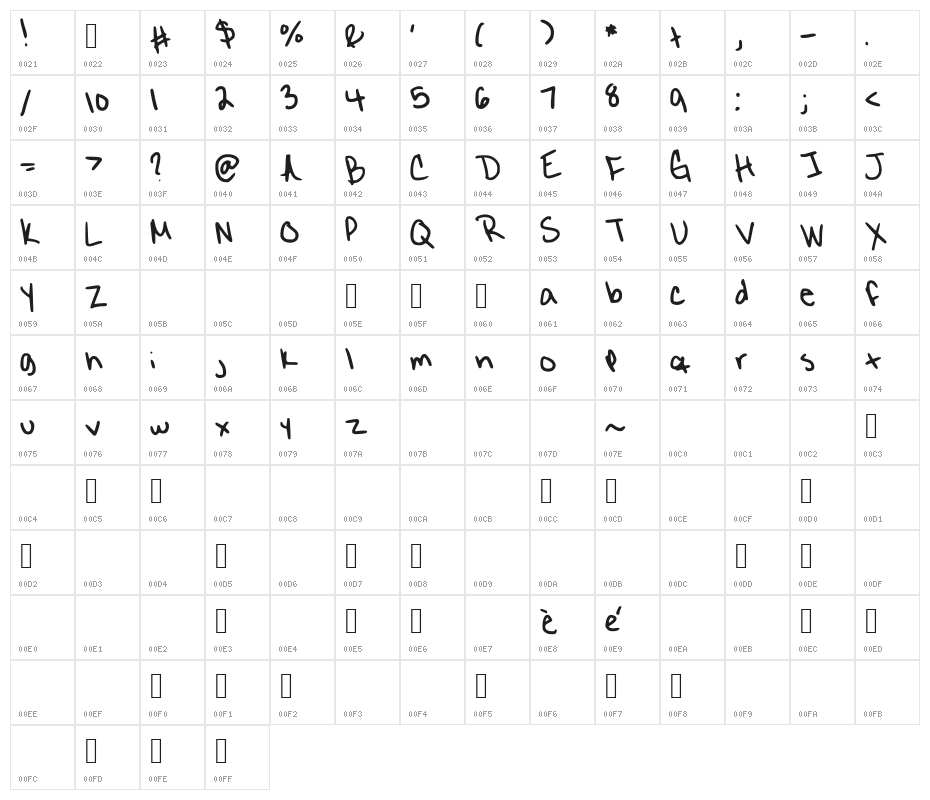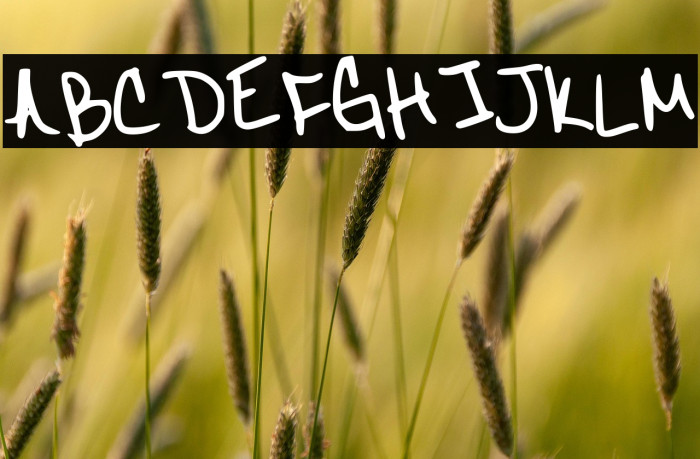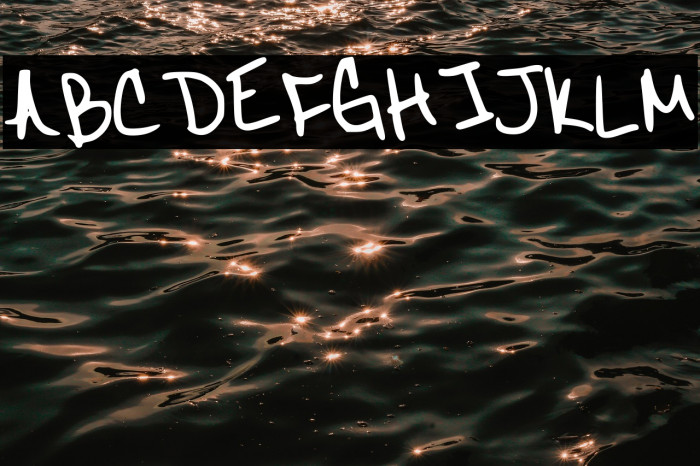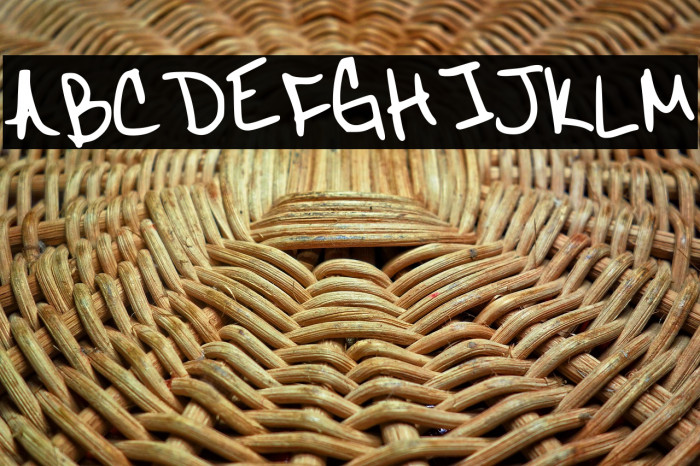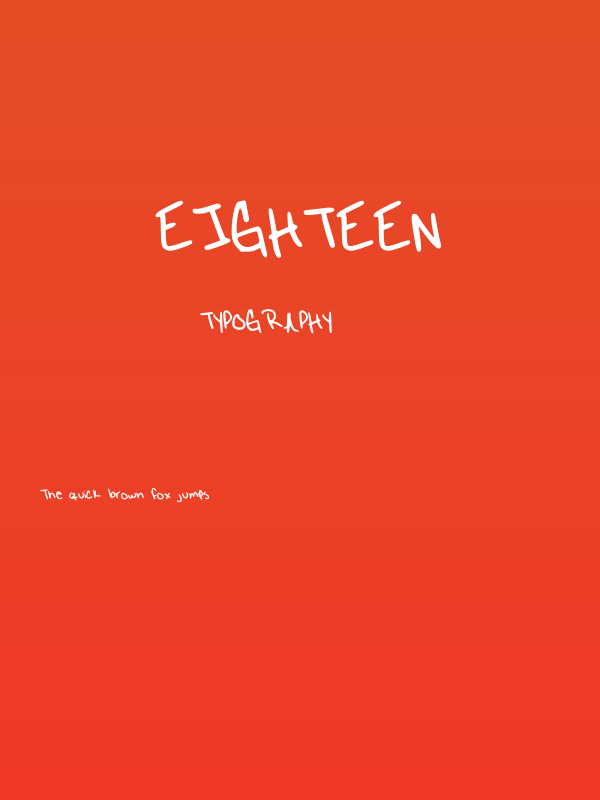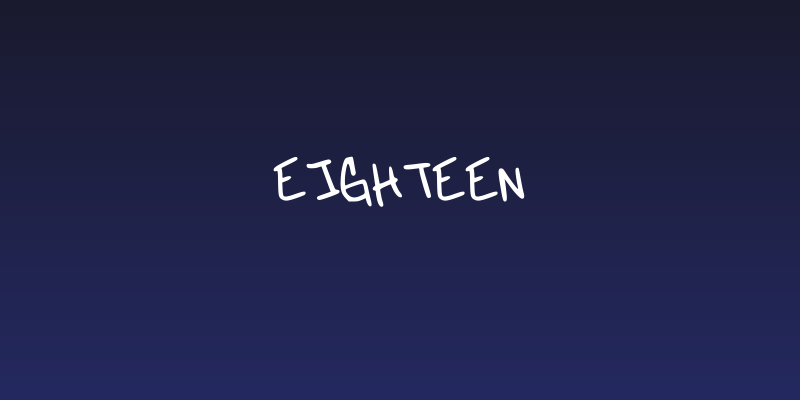
Eighteen Font
Eighteen Description
This font features a playful, handwritten style with a casual and informal appearance. The letters are unevenly spaced, giving it a dynamic and lively feel. The strokes are consistent in thickness, contributing to a cohesive look across all characters. The uppercase and lowercase letters maintain a uniform style, enhancing readability while preserving the font's whimsical nature. Numbers and special characters follow the same playful design, making this font suitable for creative and informal projects.
| Proposed Projects | Ideal for children's books, greeting cards, informal invitations, and playful branding. |